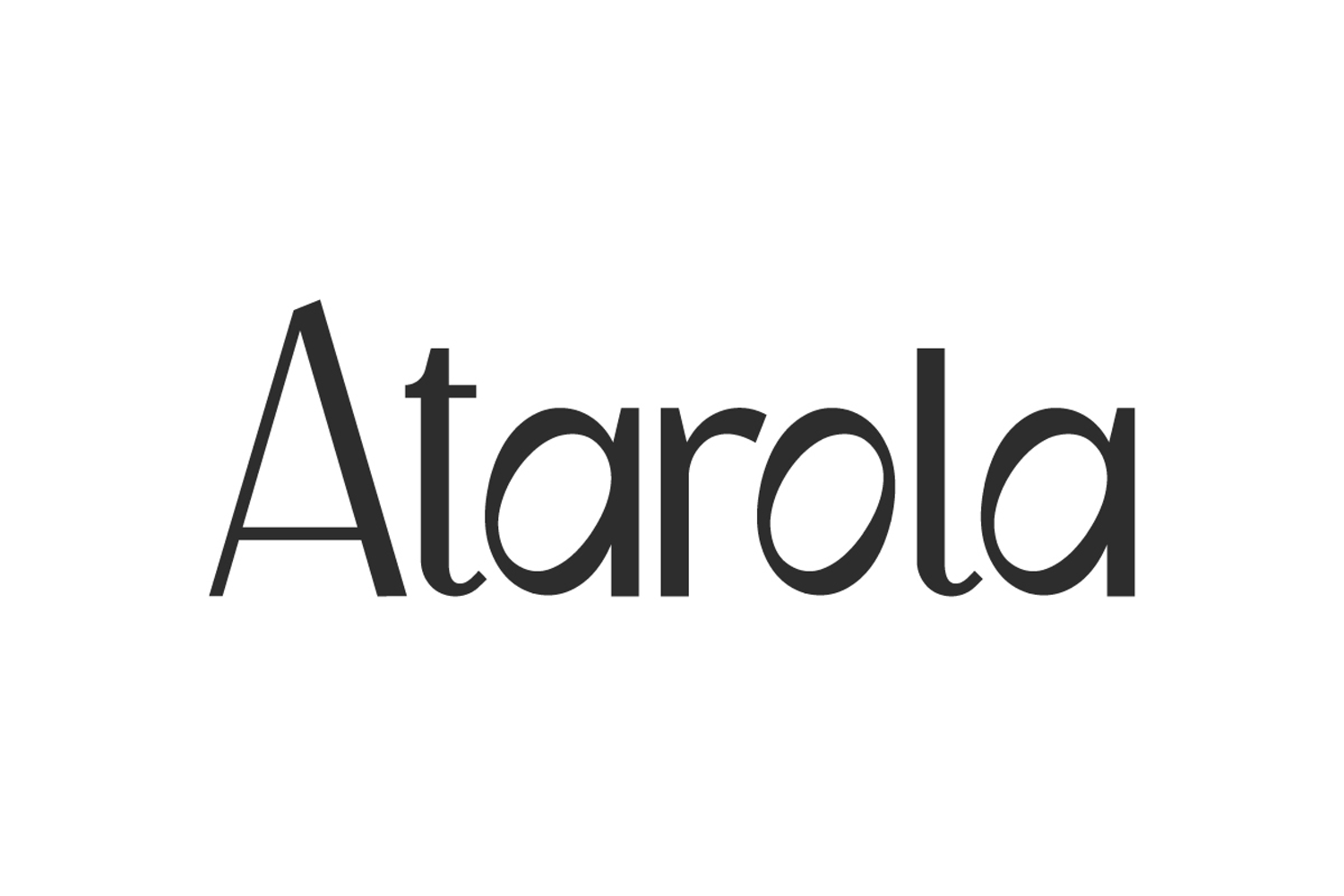
Atarola Font
Atarola Font is a cool display font of handmade marker brushes. It is a modern font and feels elegant in many situations. This font will add a great touch to any of your designs, such as blogs, logo, headline, invitation, packaging design, quotes, signage, sticker, watermarks, website, etc.
Atarola Font includes a complete set of Basic Uppercase and Lowercase Characters, Numbers, Punctuation and Symbols. It’s as realistic as the writing made by a marker, it feels organic but still clean and fresh for a professional look. Perfect for clothing brands, furniture, graphic design, hair & salon, home decoration, photography, web designer, wedding organizer, and others.